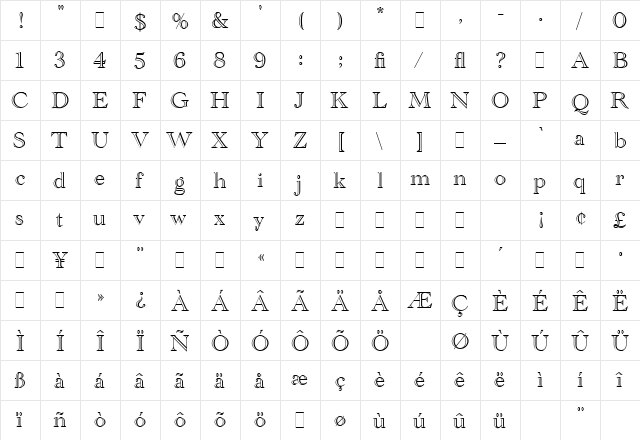
Academy Engraved LET Plain
Design Context for Academy Engraved LET Typeface
Academy Engraved LET is built around its visual character rather than neutral utility — its distinctive forms are designed to make an impression at display sizes.
Font Pairing: Pair with a clean neutral sans-serif for body copy to let Academy Engraved LET's character lead without overwhelming the composition.
Pro Tip: Treat Academy Engraved LET as the centrepiece of your typographic hierarchy. One strong heading set in a decorative face can carry an entire layout.